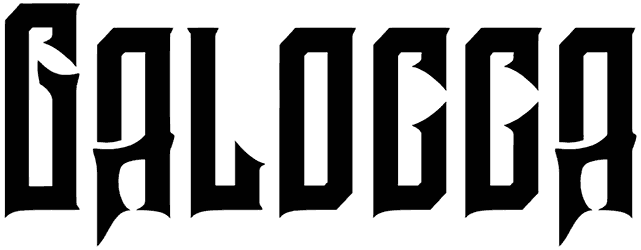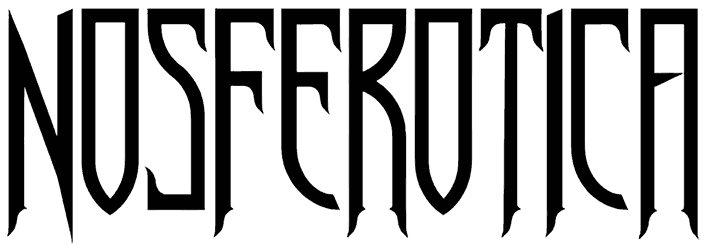
New Black Font
New Black is such a fantastic font that works perfectly for scientific magazines, movie posters, tattoos, etc. Don’t hesitate and click on the download button right now. The letters come with a sharp style and the external lines attract more attention. Head over to our boundless gothic fonts.